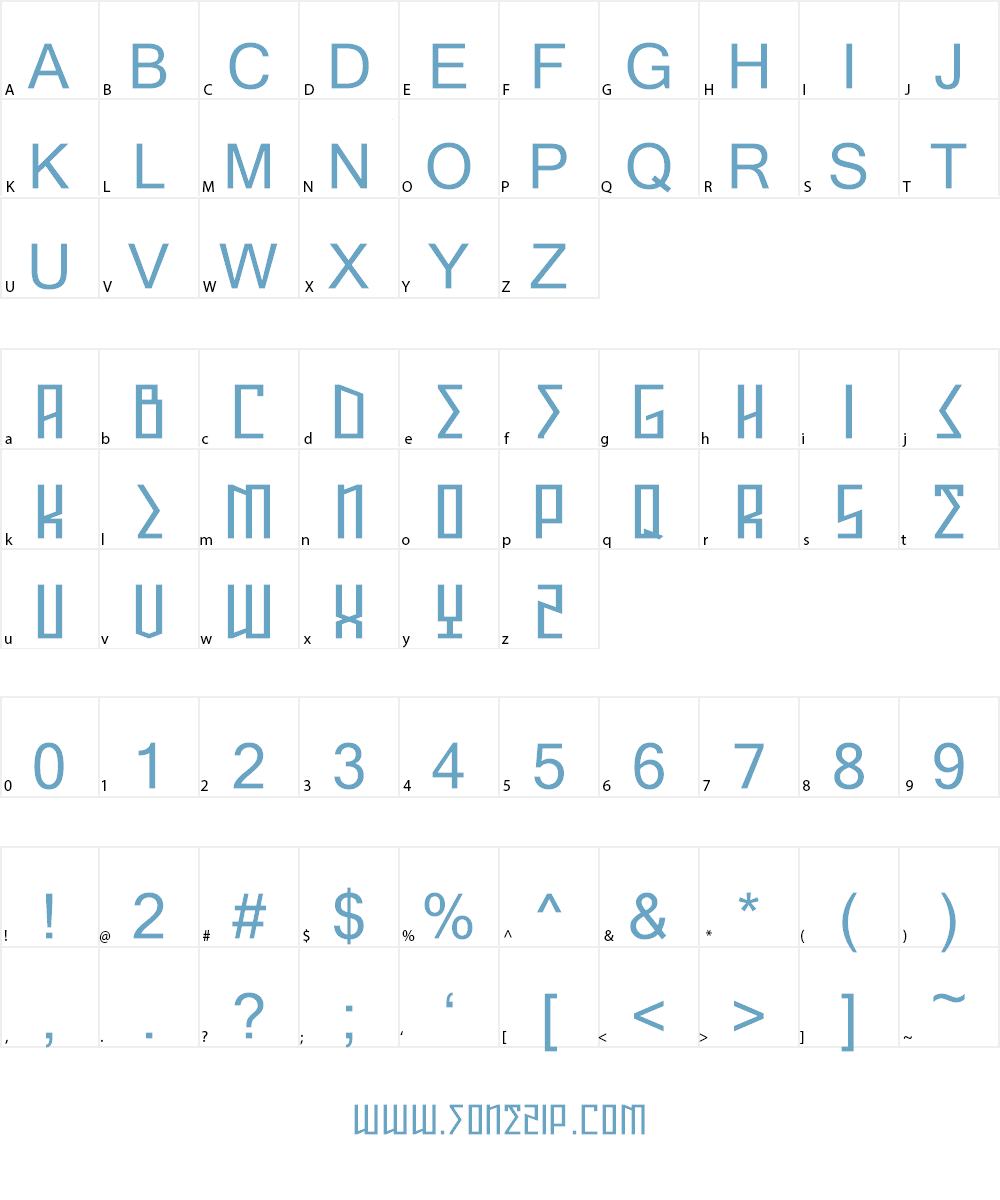
Annihilator Regular Demo is a new heavier variant of Annihilate. Annihilator Regular features modular letterforms based on a West Coast handstyle.The font presents an angular futurist letterform representation. Recommended for product design, logo design, and website headings.
Annihilator Regular includes a selection of punctuation and special characters. Latin 1, Extended A and Extended B characters are provided without diacritics. All lowercase characters are provided as small caps.
Annihilator Regular is provided without a kern table. Sample pangram text based on Auto tracking and leading (line spacing).